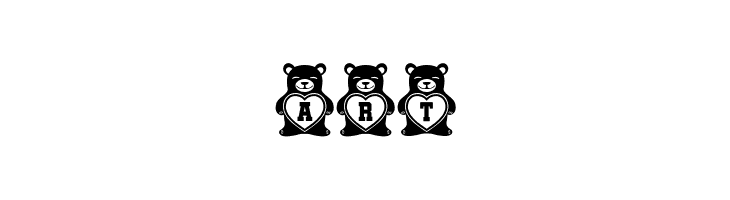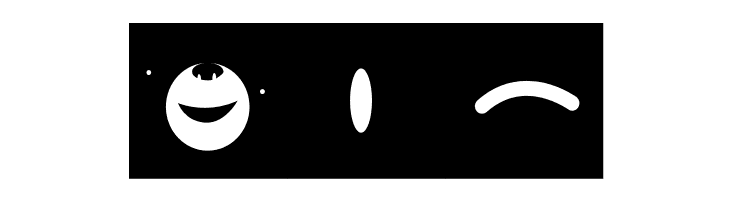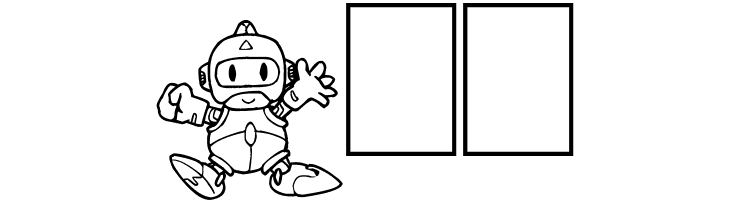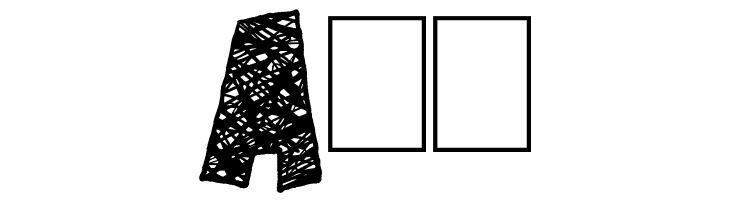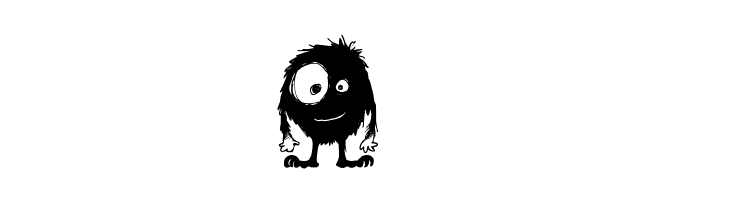
A playful font with characters inside teddy bear shapes, perfect for children's designs.
A constellation-themed font with characters formed by dots and connecting lines.
A whimsical and decorative serif font with playful curls and flourishes.
A whimsical decorative font with monster-themed glyphs, perfect for playful designs.
A decorative and abstract font with mystical, symbolic characters.
A decorative font featuring unique robot-themed characters for each letter.
A bold, playful font with a hand-drawn, textured appearance, ideal for children's themes.
A playful, decorative font with letters featuring unique facial elements.
A playful and whimsical collection of unique monster illustrations.
A playful, hand-drawn font with unique patterns and textures.